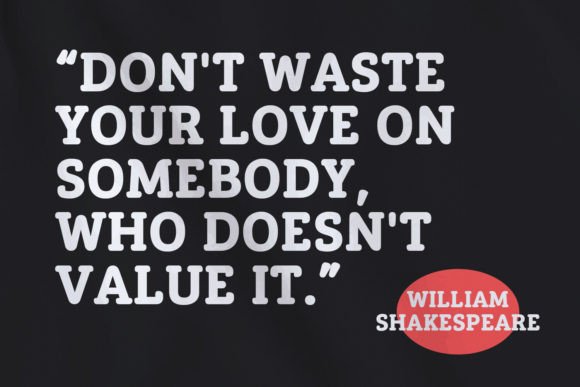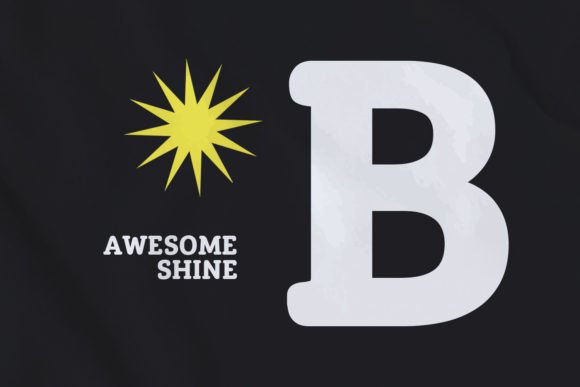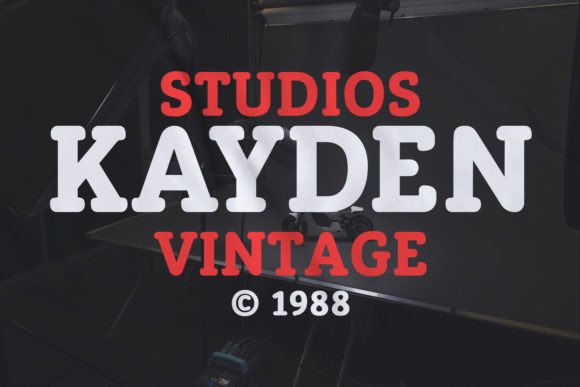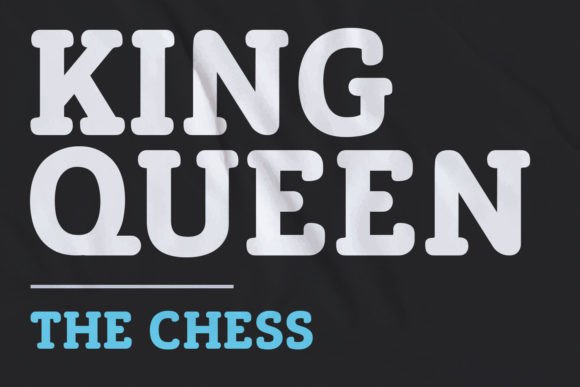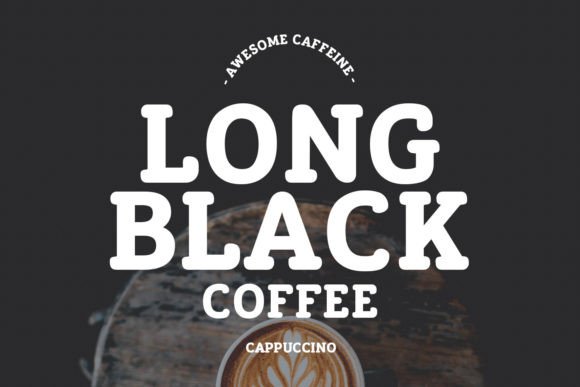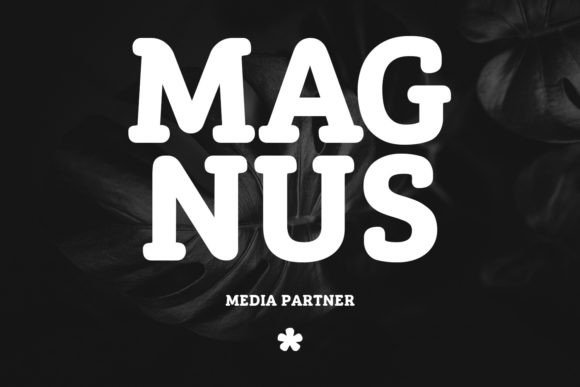
Introduction to Rufel Font
Rufel Rounded Slab Serif Display Font is a stylish and bold typeface.
It features thick letters with rounded edges, making it both modern and friendly This font is great for headlines, logos, and eye-catching designs.
Key Features of Rufel Font
Why Choose Rufel Font?